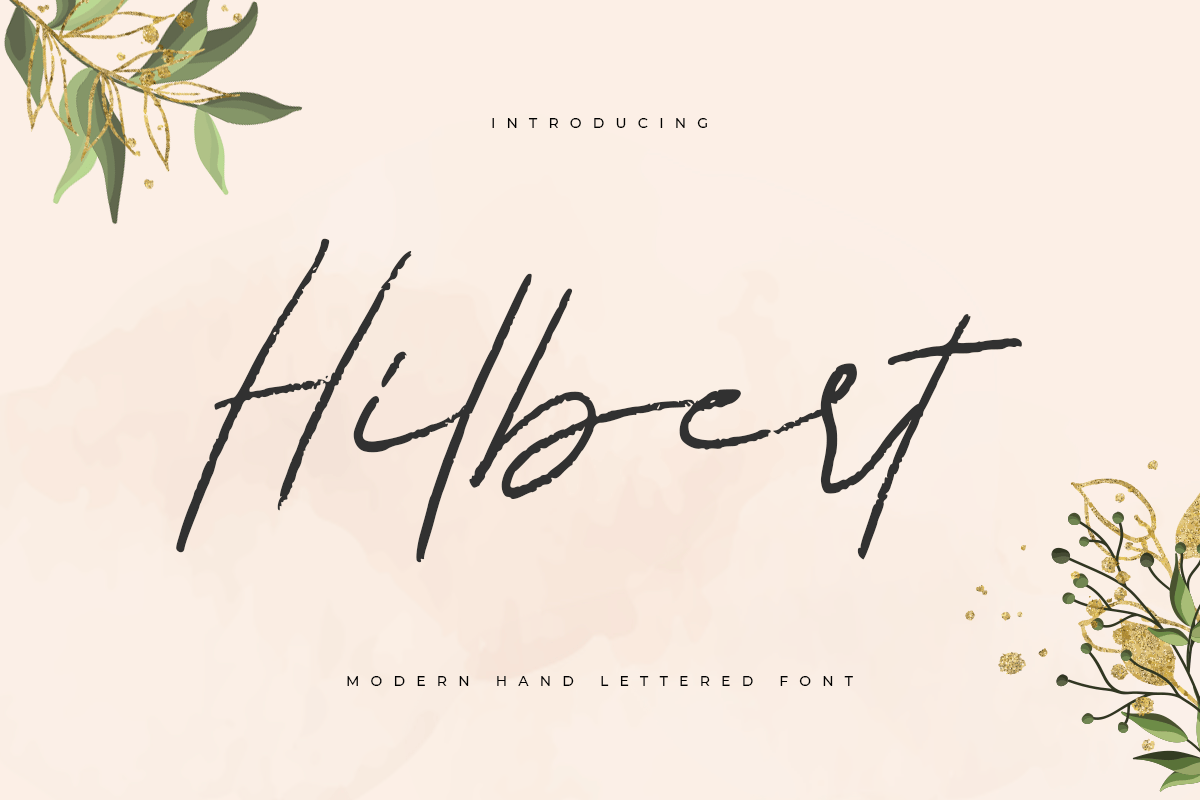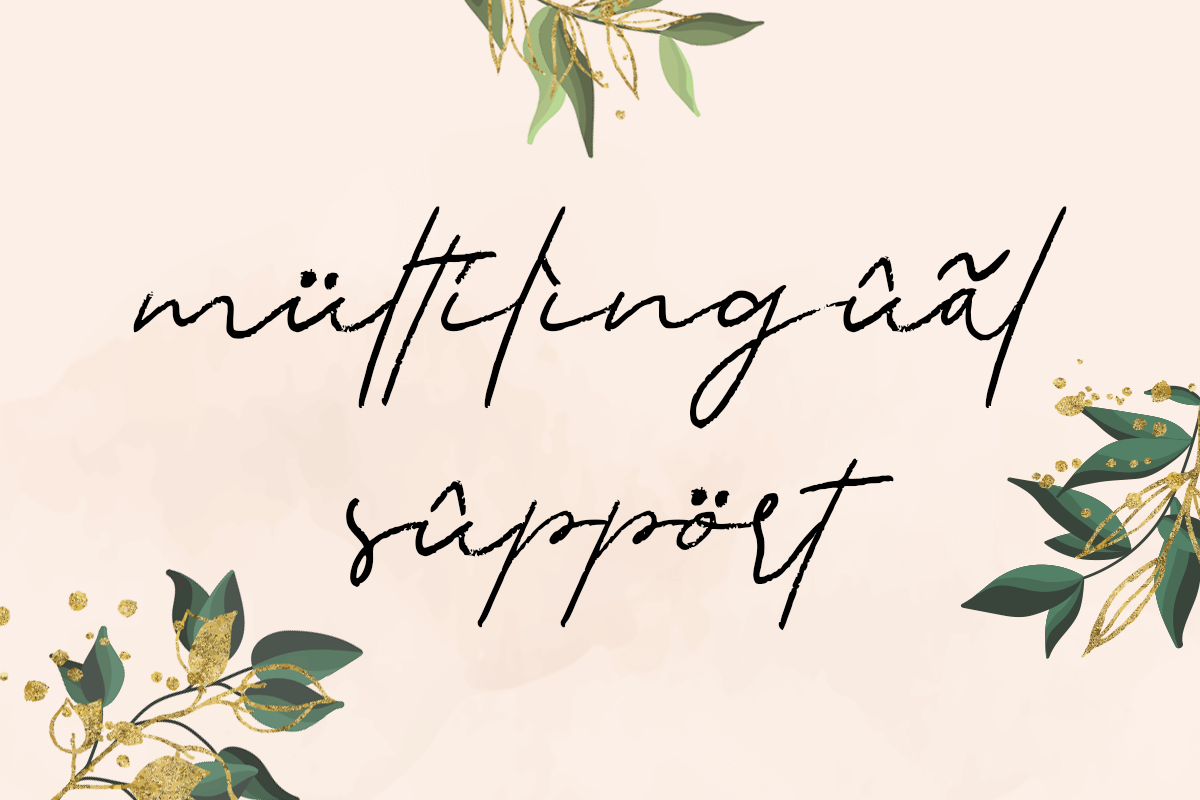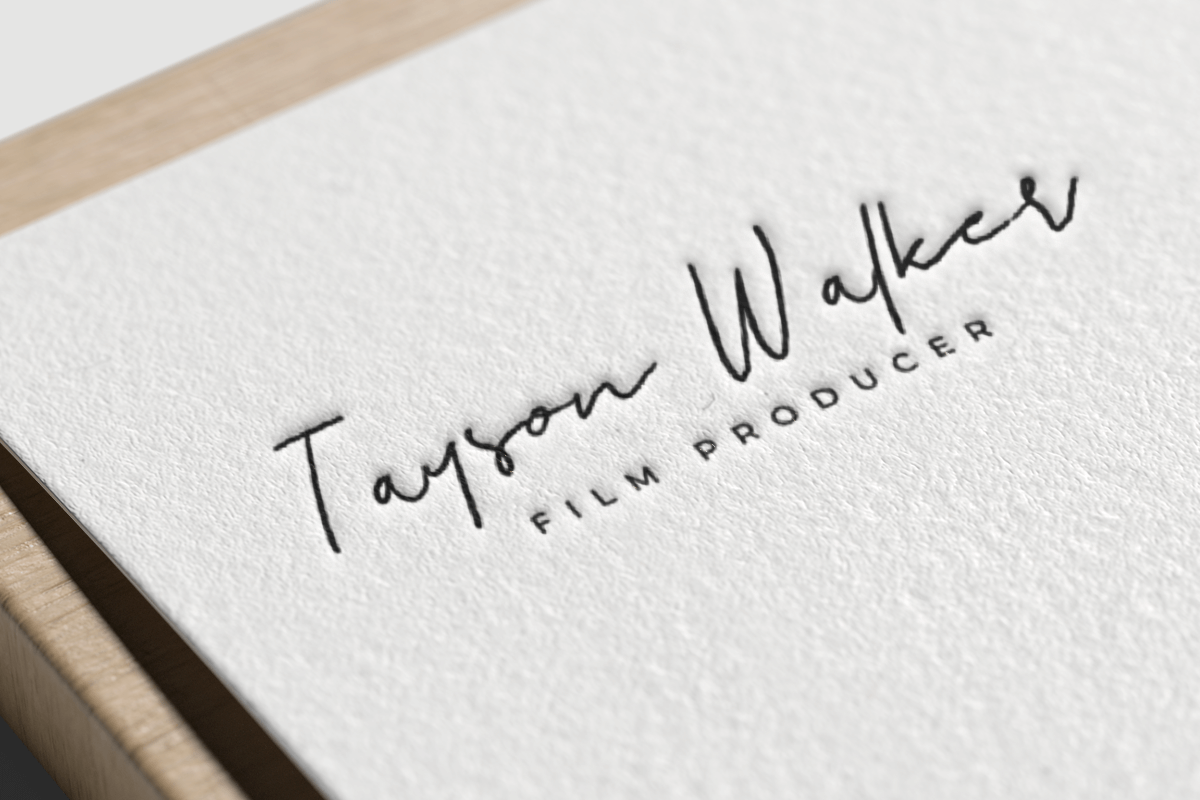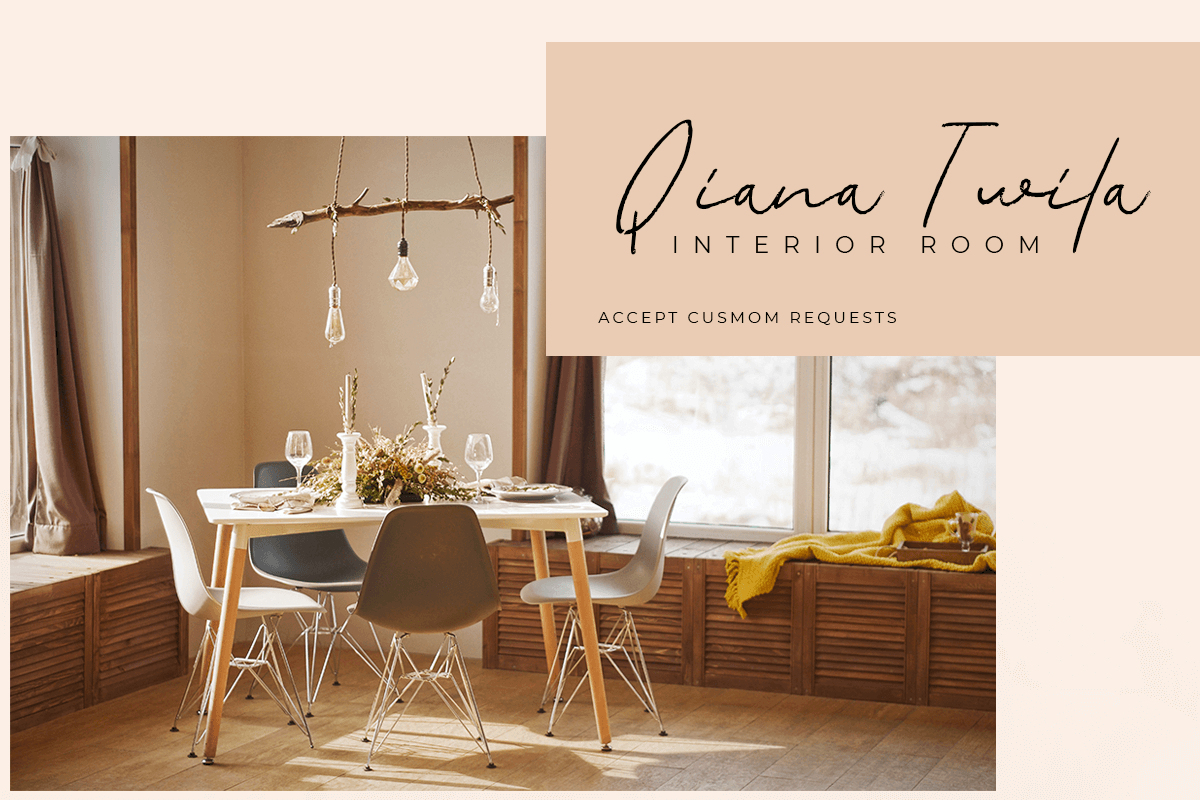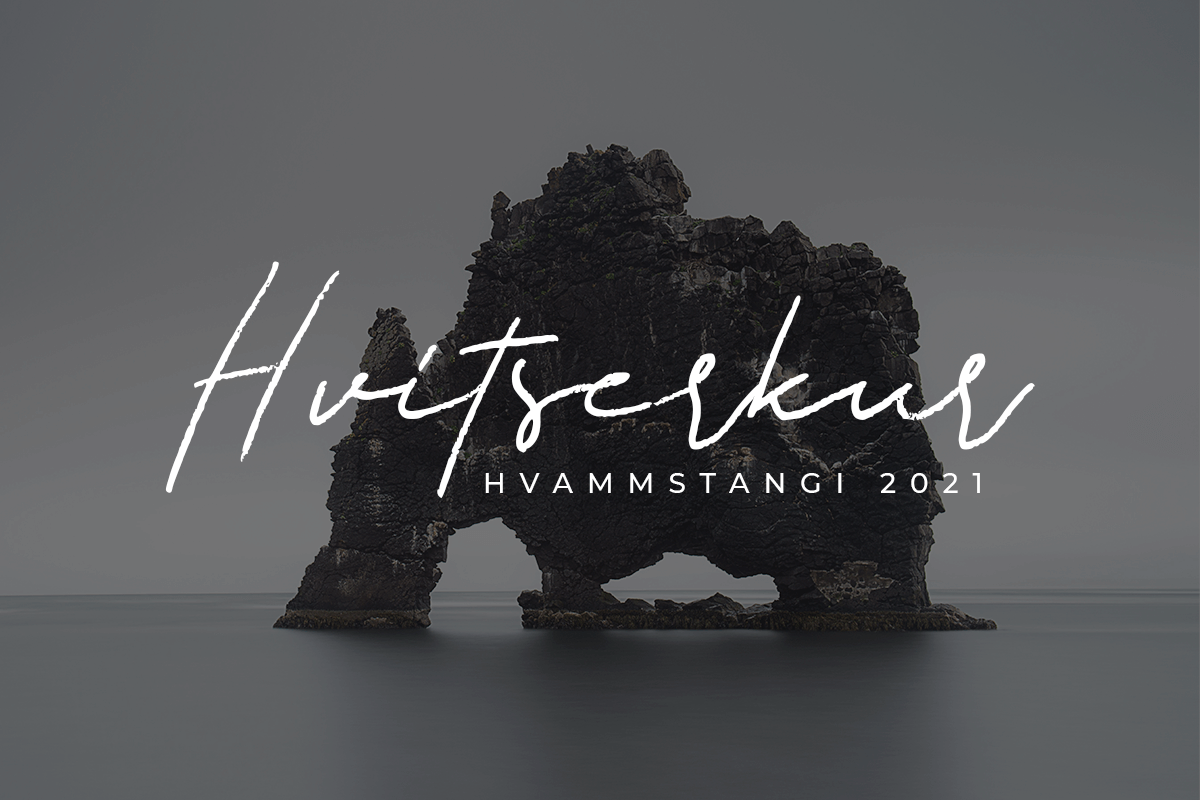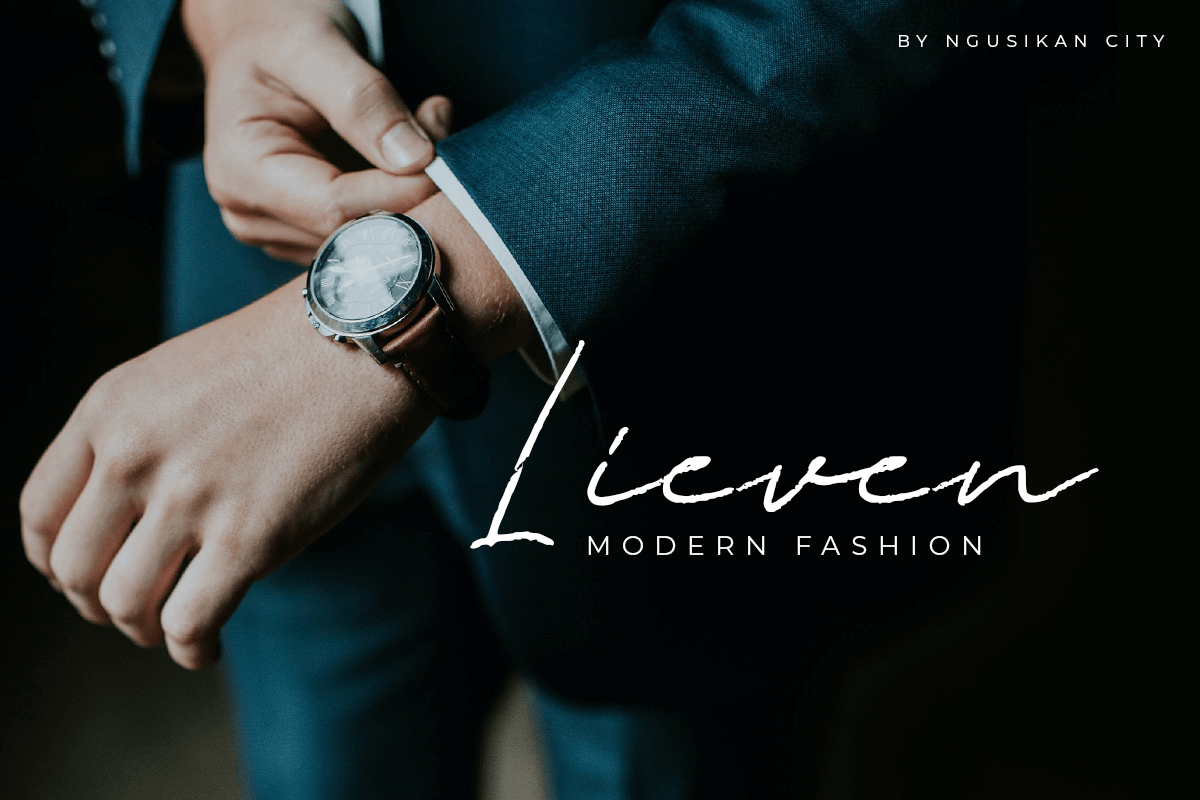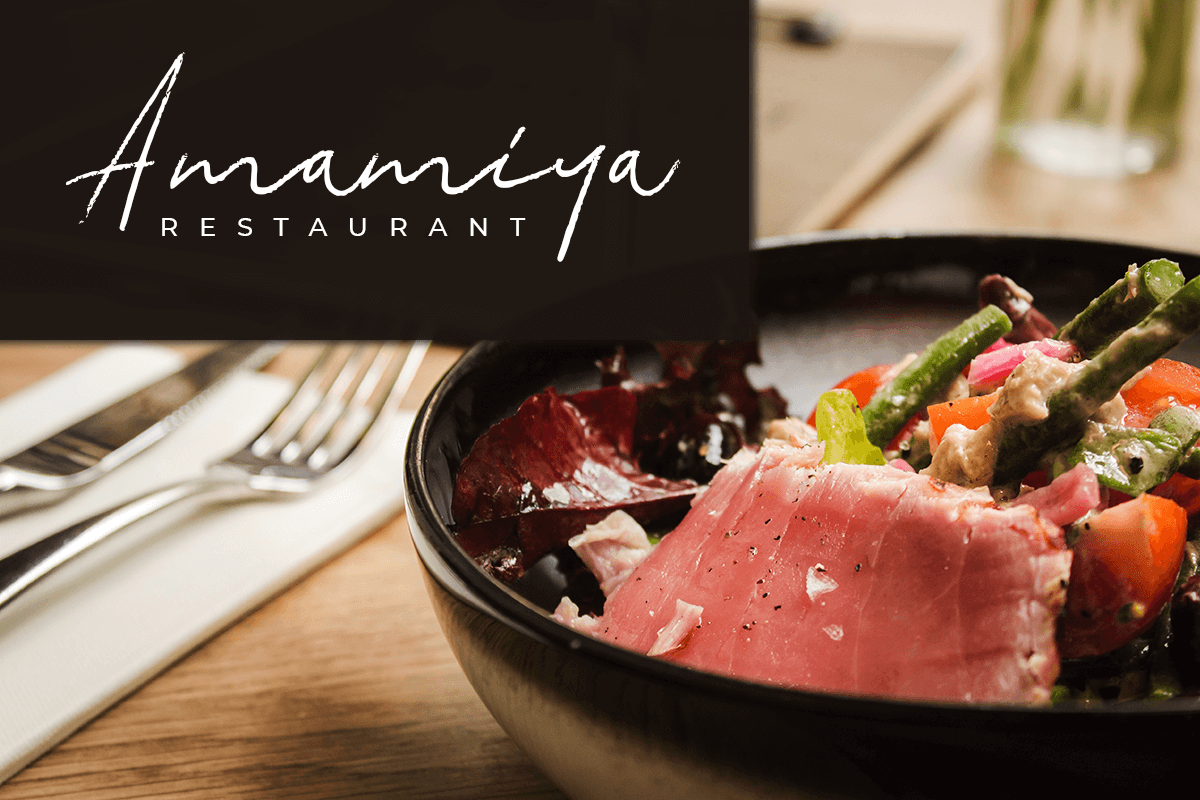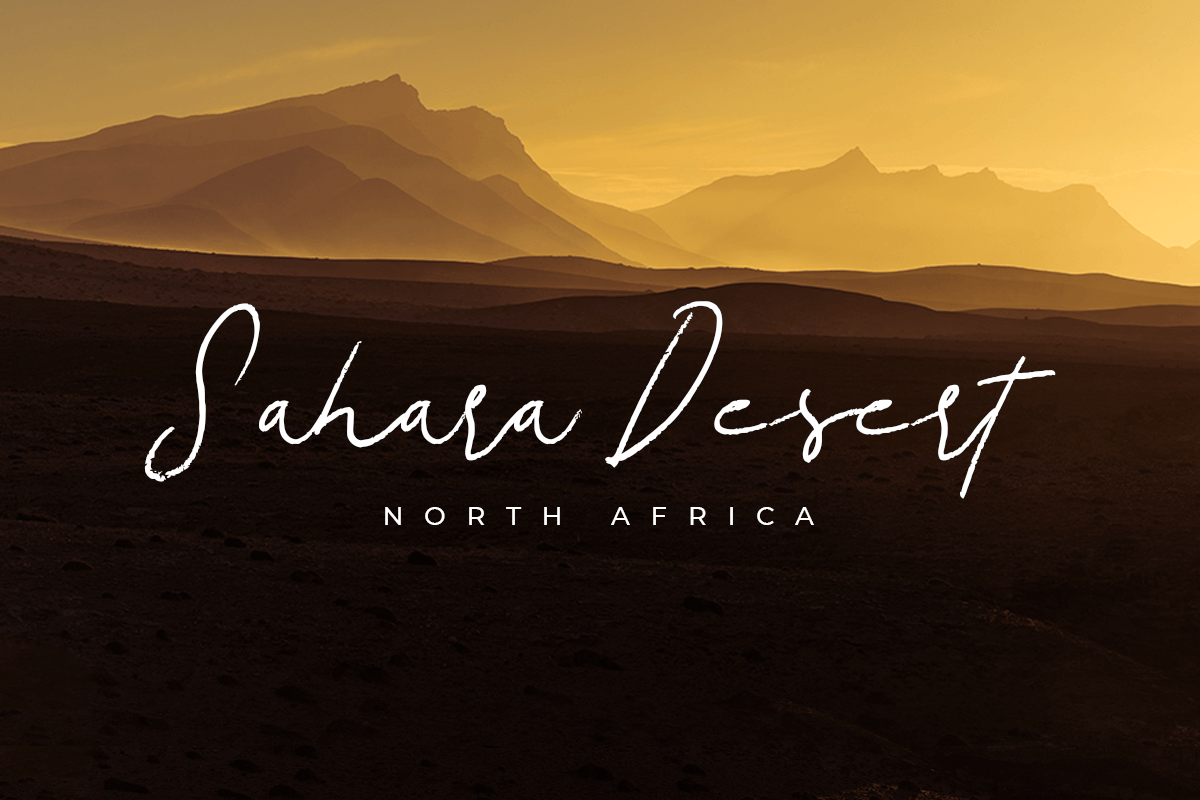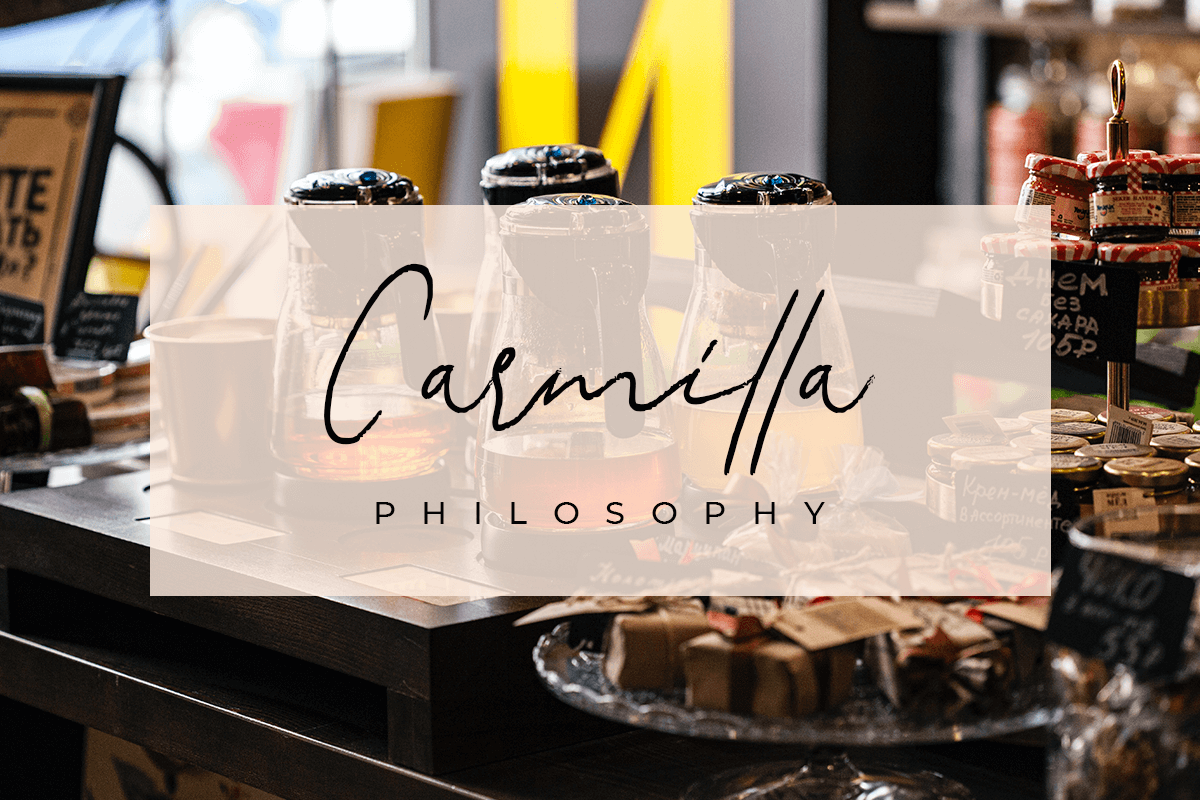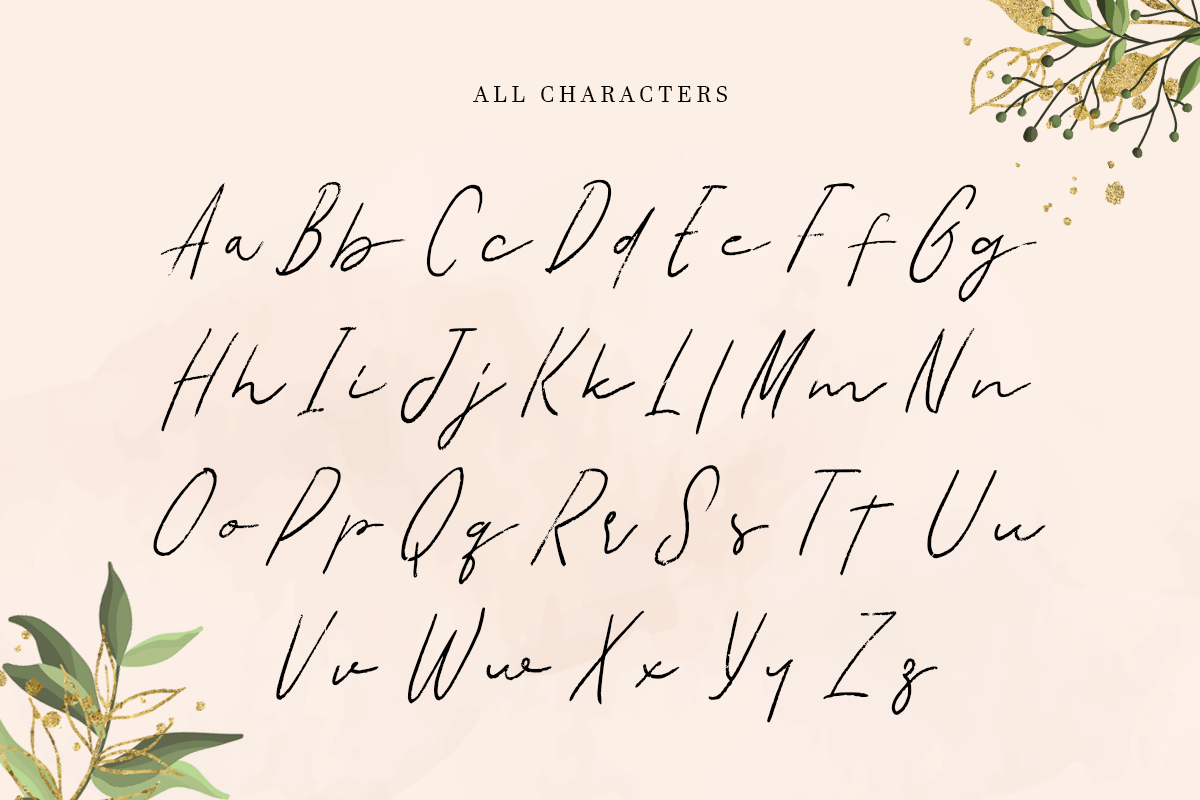
Hilbert
-Modern Hand Lettered Font
Hilbert
Hilbert – a Modern Hand Lettered Font. Inspired from beauty and feminine style very good for signature, stationery, logo, typography quotes, magazine or book cover, website needs.